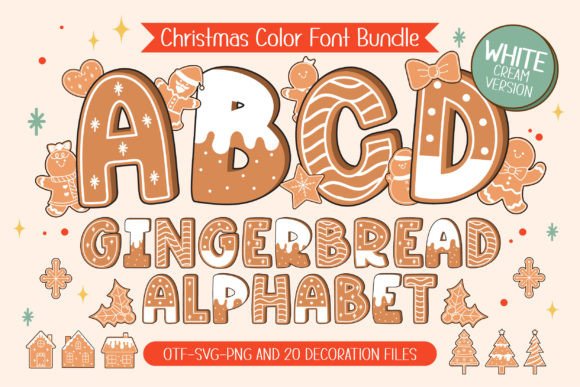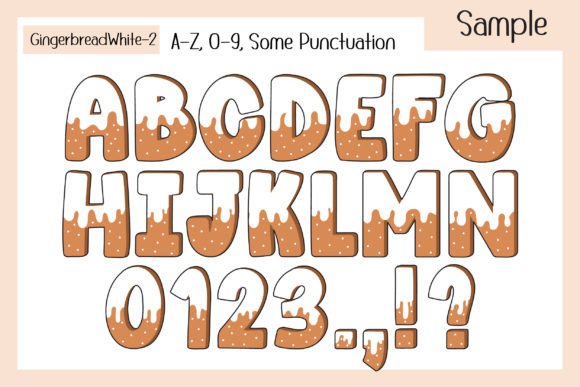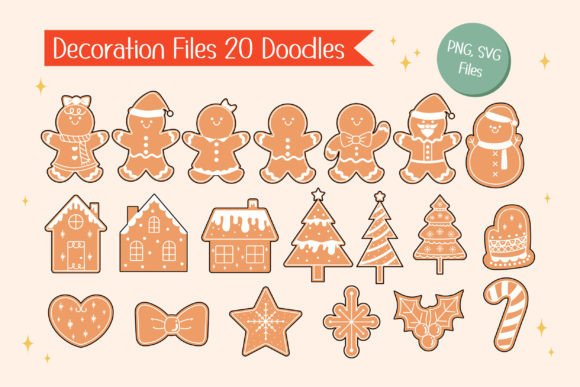
Gingerbread White Cream Font
Introducing “Gingerbread White Cream”, a playful Christmas font inspired by the cozy charm of gingerbread cookies topped with white cream. This delightful color font consists of 4 styles and includes 20 bonus matching clip arts, making it perfect for adding a festive touch to your Christmas posters, T-shirts, branding, custom DIY craft projects, quotes, personalized names, and more. “Gingerbread Alphabet” brings the warmth and sweetness of the holiday season to all your creative endeavors.